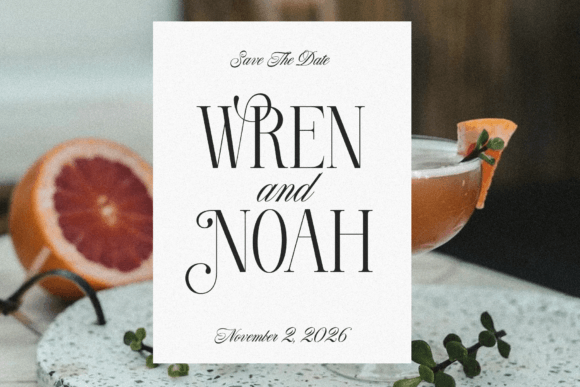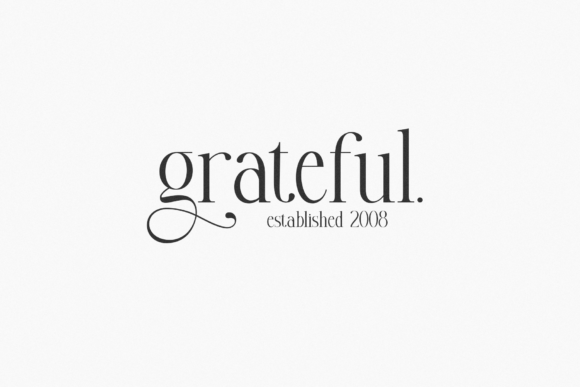
Wonder Bright Font
Wonder Bright is a whimsical serif font with delicate swashes and classy character! This font is perfect for a logo as it includes many different swashes and swirls within the glyphs. Wonder Bright is also great for farmhouse designs, wedding invitations, craft projects, cricut designs and more!